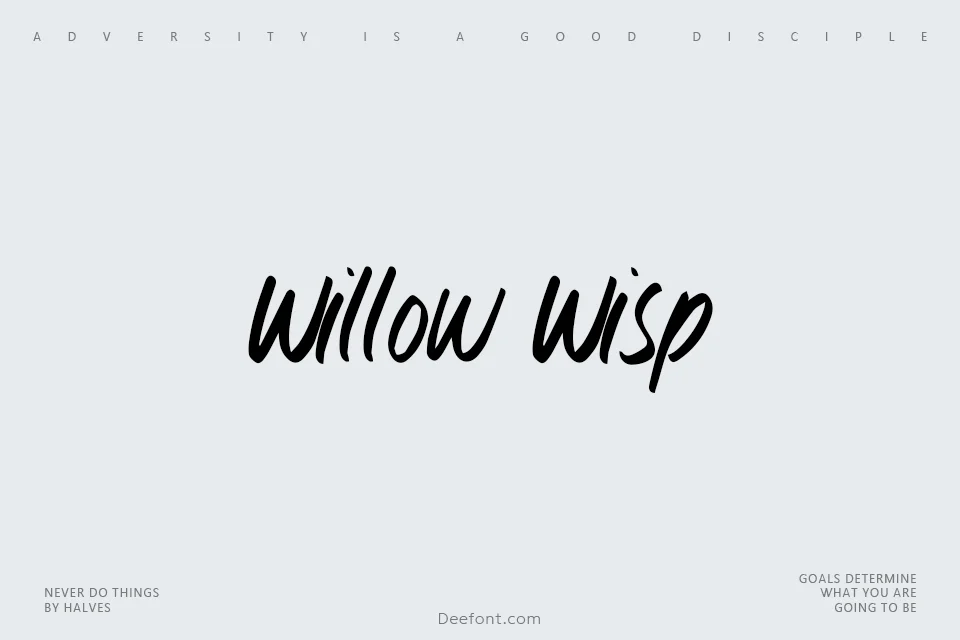
Willow Wisp Font
Willow Wisp is an elegant and flowing handwritten script font designed by Zaffar Ansari. This graceful typeface features smooth, connected letterforms with organic curves and a fluid writing style reminiscent of calligraphy. Perfect for wedding invitations, greeting cards, branding projects, and creative typography applications that require a delicate, sophisticated touch. The font supports extensive character sets including uppercase, lowercase letters, numbers, accents, and punctuation marks, making it versatile for various design contexts.